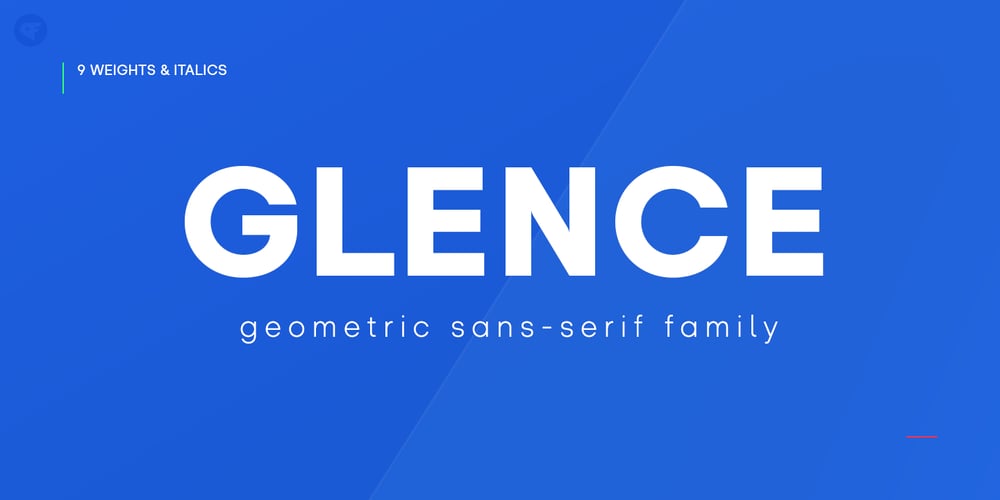
Glence Font Family was designed by Paul Chen and published by Nine Font. Glence contains 18 styles and family package options. Glence family is a geometric sans-serif type family with 9 weights, from thin to black,with corresponding italics. Glence is designed based on geometric shapes that looks simple and clean. Each font includes opentype features such as Stylistic Alternates, Proportional Figures, Tabular Figures, Numerator, Superscript, Subscript, Case-Sensitive, Denominators, Scientific Inferiors, Ordinals, Ligatures and Fractions. Glence will make your artworks better with its simple & clean shapes.